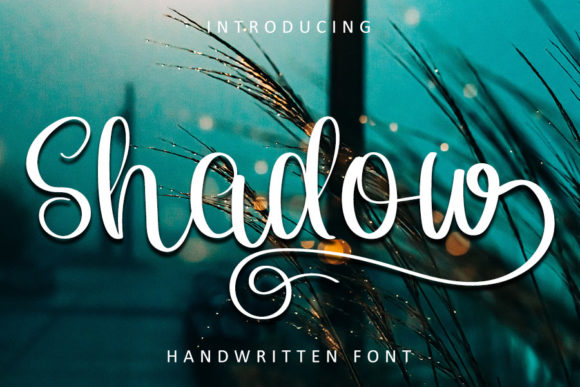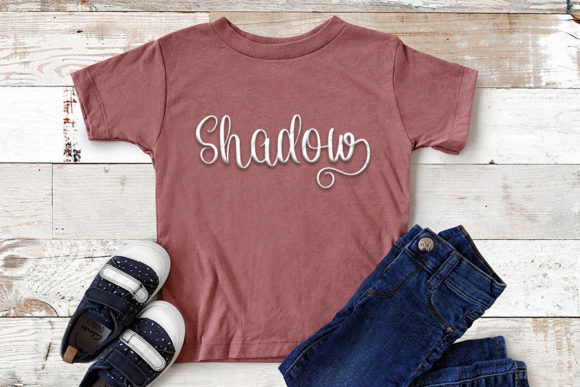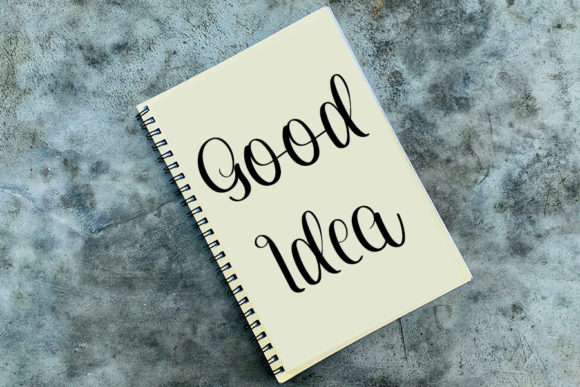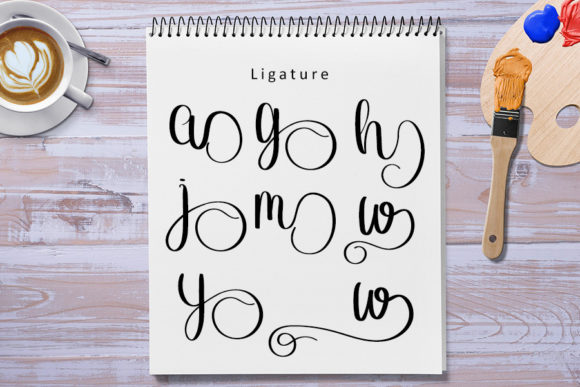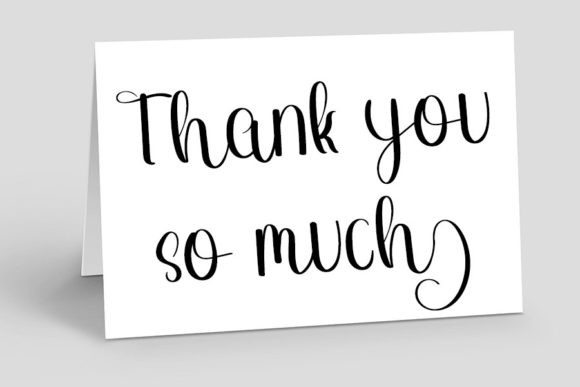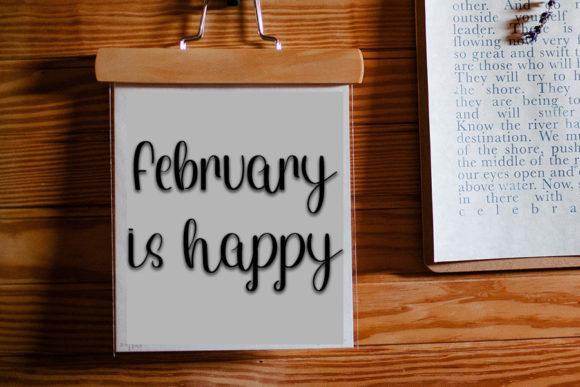
Shadow Font
About Shadow Font
Shadow is a playful and smart handwritten font with an impeccable form, inspired by a timeless calligraphy. Balanced and varied, this font was designed to enhance the beauty of your projects.